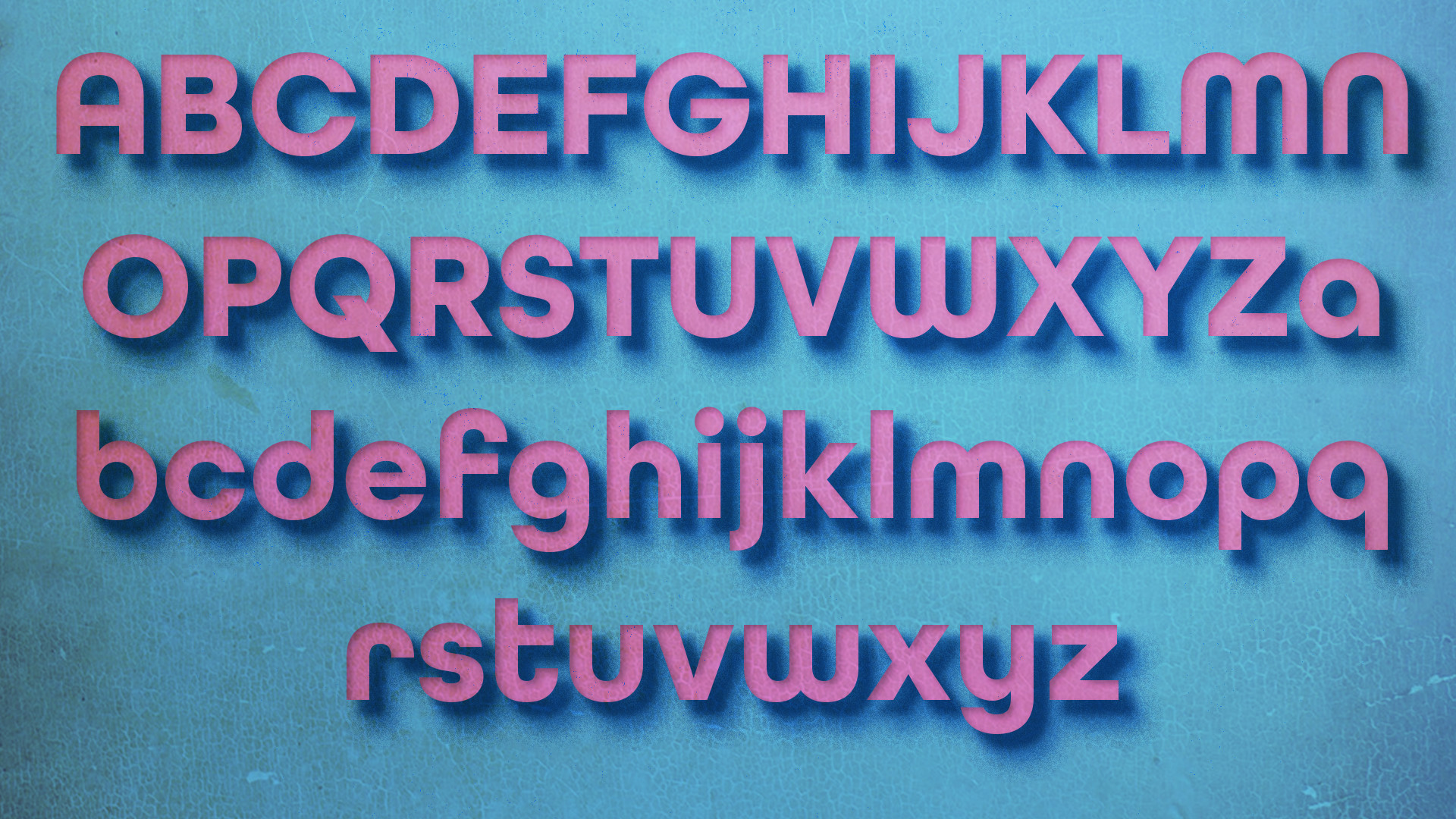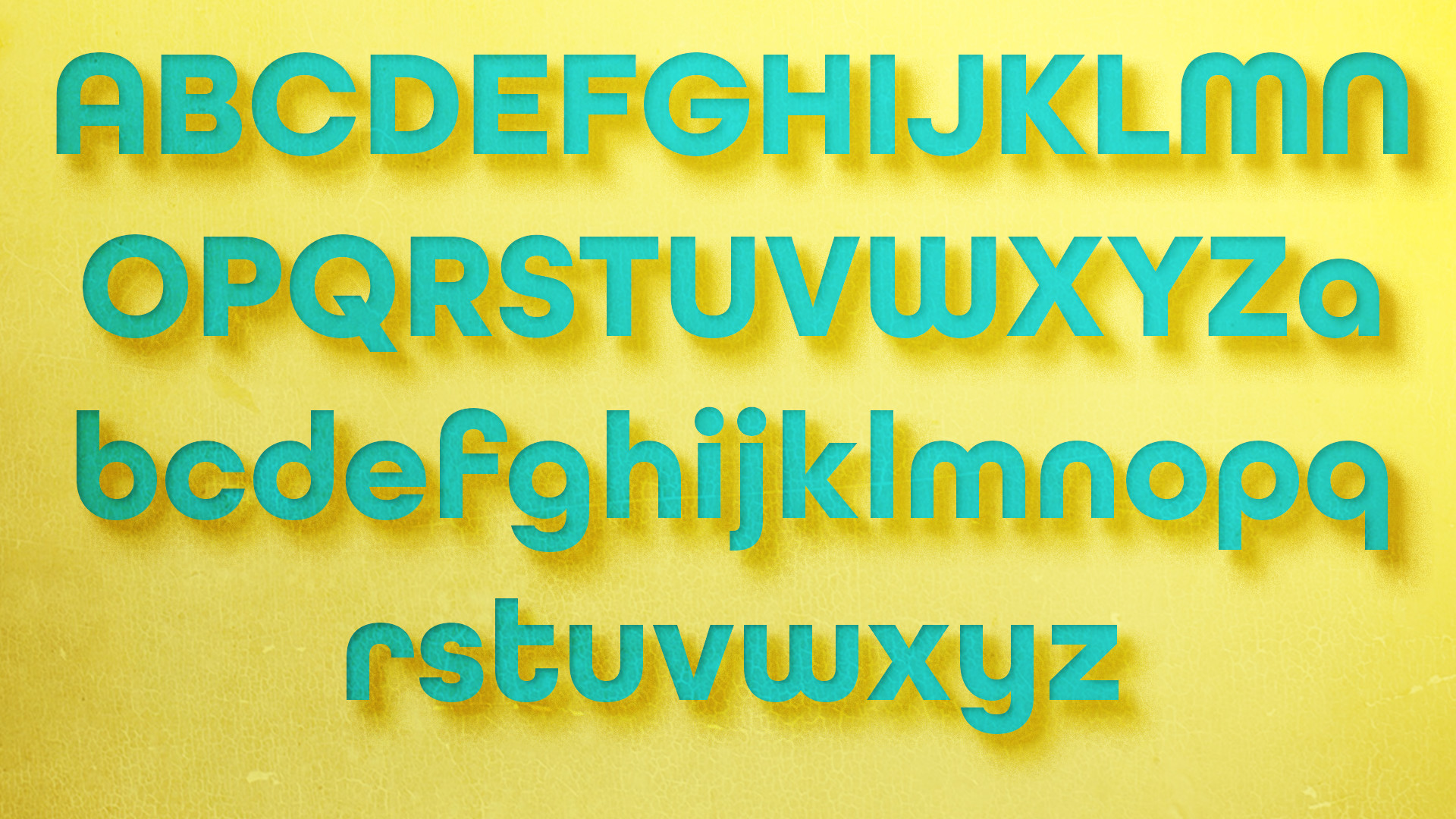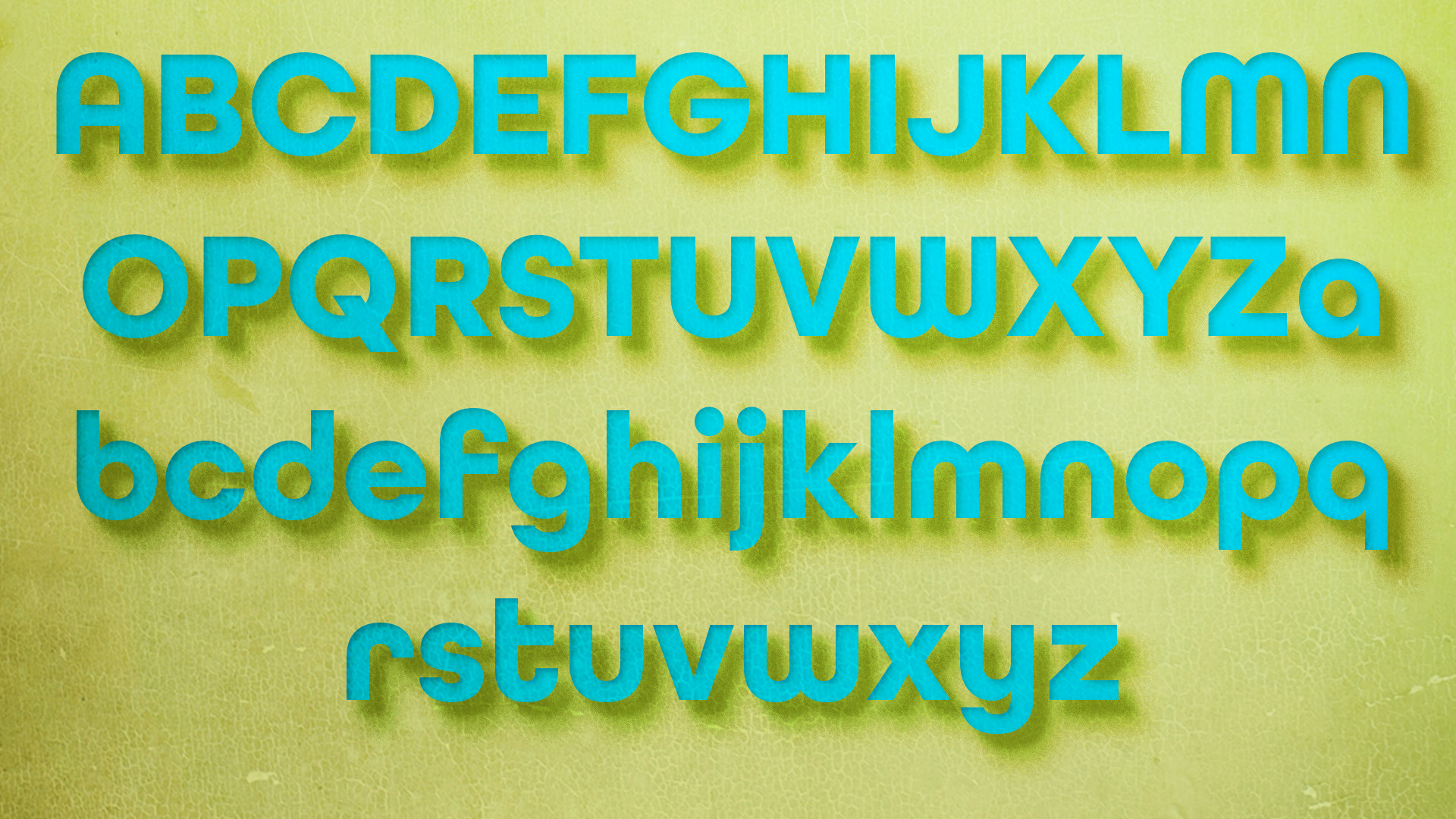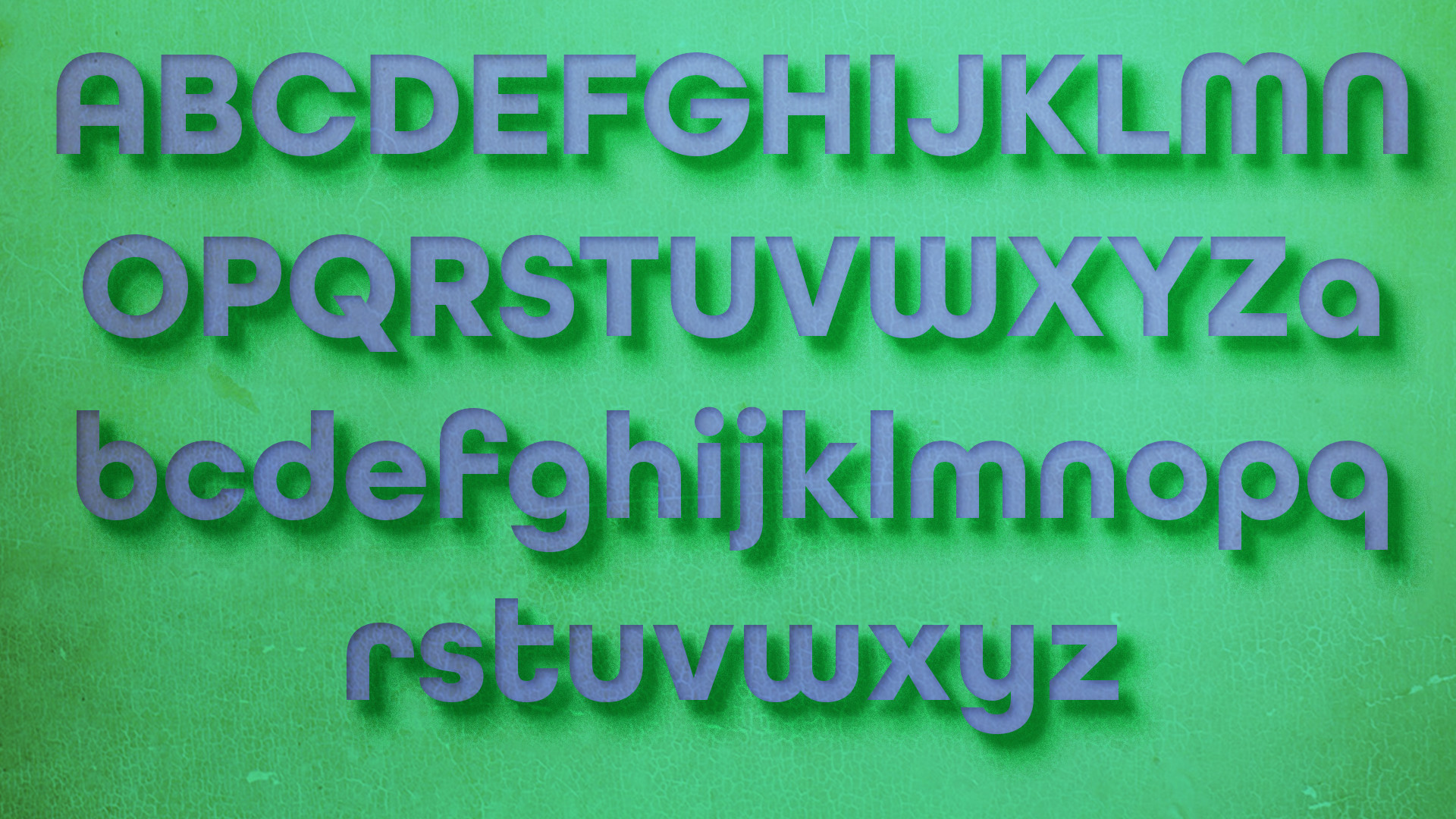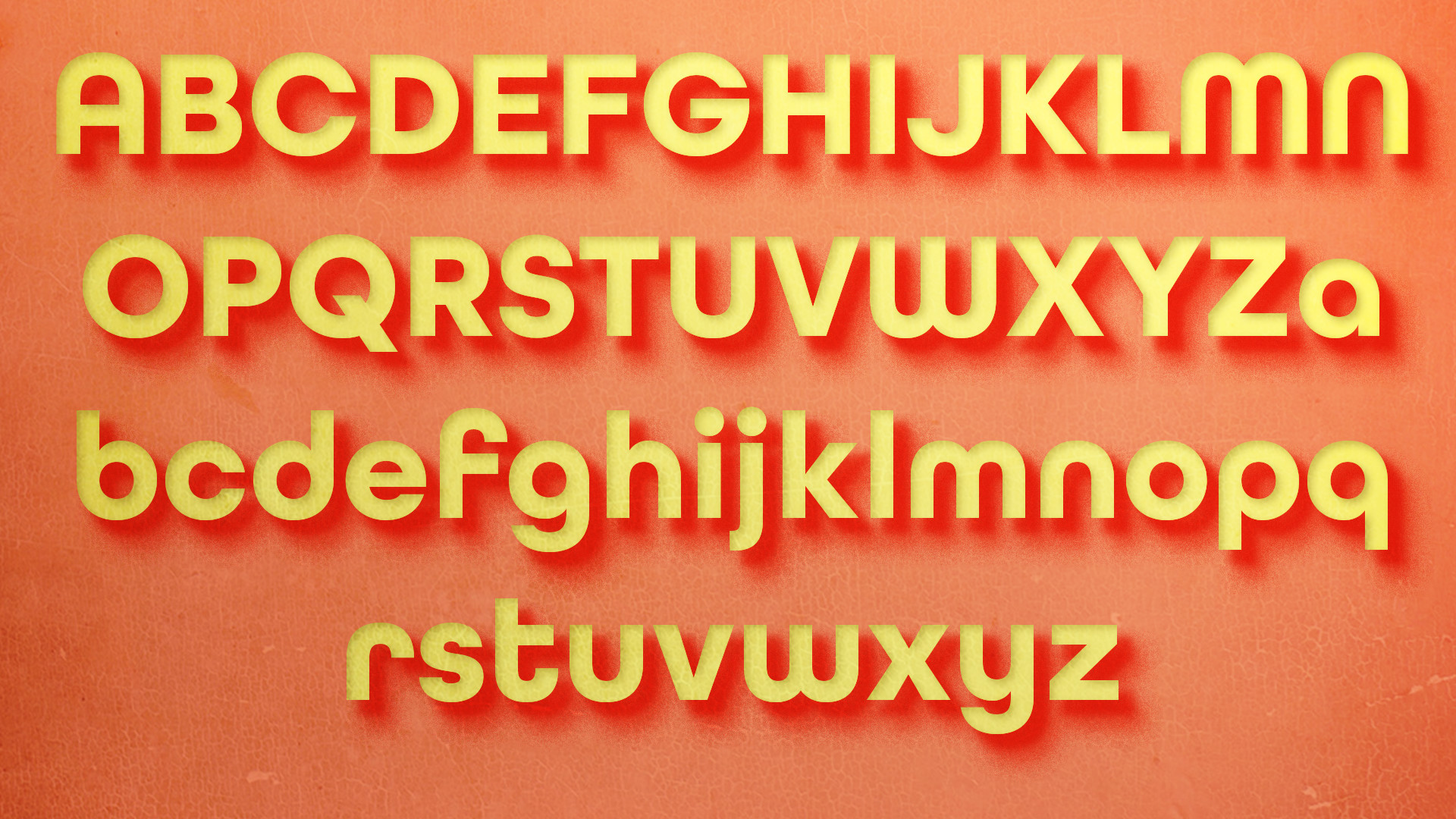
TIGER GAME ASSETS FONT STYLES VOL.03
This ASSETS Pack includes the basic font style elements for the User Interface for game design, You can use these as buttons, also you can customize your favorite color.